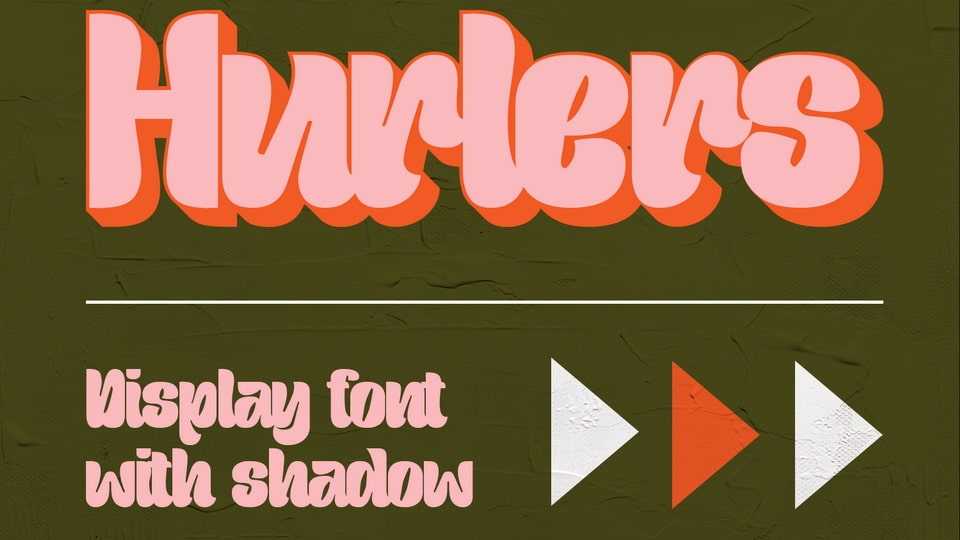
Download Hurlers font, a versatile bold and retro minimalist display typeface with a distinctive shadow effect, making it a go-to choice for a wide range of creative uses including logos, labels, posters, apparel designs, and more